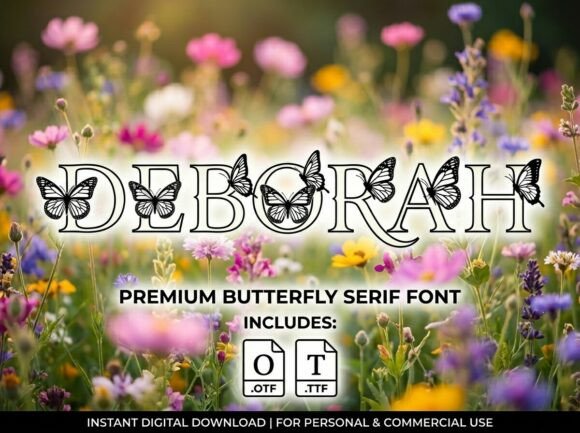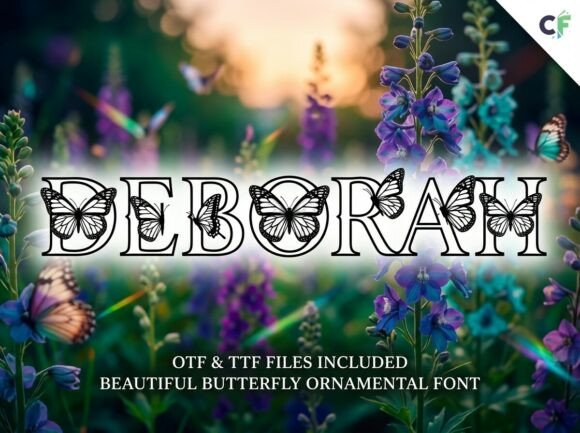
Introducing Deborah Font: A Stunning Decorative Display Font
Are you tired of using the same old fonts for your designs? Look no further than Deborah Font, a unique and artistic display font that’s sure to turn heads. This font is designed to be the center of attention, featuring bold and eye-catching elements that will elevate your designs to the next level.
What Makes Deborah Font Special?
Deborah Font is a decorative display font that’s perfect for creators who want to break away from the ordinary. Its strong visual personality and unique artistic elements make it ideal for bold headlines, artistic logos, and creative packaging. Whether you’re a designer, crafty DIY enthusiast, or entrepreneur, this font is sure to help you make a statement.
Key Features of Deborah Font
- Unique Artistic Elements: Deborah Font features one-of-a-kind artistic elements that will add a touch of elegance and sophistication to your designs.
- Strong Visual Personality: This font has a bold and eye-catching personality that’s sure to grab attention.
- Versatile: Deborah Font is perfect for a variety of design projects, including bold headlines, artistic logos, and creative packaging.
- Professional and Polished Finish: Despite its bold and artistic nature, Deborah Font maintains a professional and polished finish that’s suitable for even the most high-end designs.
⚠️ IMPORTANT NOTE BEFORE PURCHASE: Deborah Font is an ALL-CAPS (Uppercase Only) display typeface. It does not include lowercase letters. It is specifically designed for high-impact headlines, logos, and decorative initials where every letter is a work of art.
Who is Deborah Font For?
Deborah Font is perfect for:
- Graphic Designers: If you’re looking for a unique and eye-catching font to add to your design arsenal, Deborah Font is a great choice.
- Crafty DIY Enthusiasts: If you love crafting and making things, Deborah Font is a great way to add a professional touch to your projects.
- Entrepreneurs: If you’re looking for a way to make your brand stand out, Deborah Font is a great choice for logos, packaging, and marketing materials.
Tips for Using Deborah Font
Here are a few tips for getting the most out of Deborah Font:
- Use it for Headlines: Deborah Font is perfect for bold headlines and titles.
- Experiment with Colors: Try pairing Deborah Font with different colors and textures to add depth and interest to your designs.
- Use it for Logos: Deborah Font is a great choice for logos and branding materials.
Deborah Font is a stunning decorative display font that’s sure to elevate your designs to the next level. With its unique artistic elements, strong visual personality, and versatility, this font is perfect for creators who want to break away from the ordinary. Whether you’re a designer, crafty DIY enthusiast, or entrepreneur, Deborah Font is a great choice for anyone looking to make a statement.